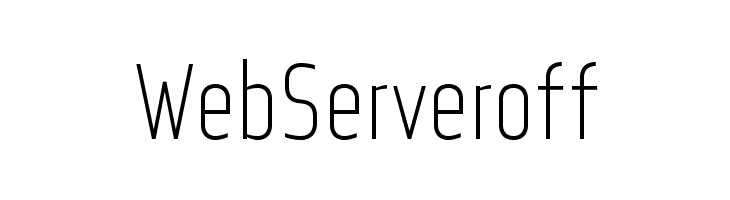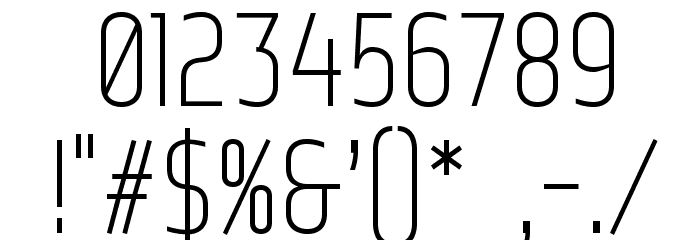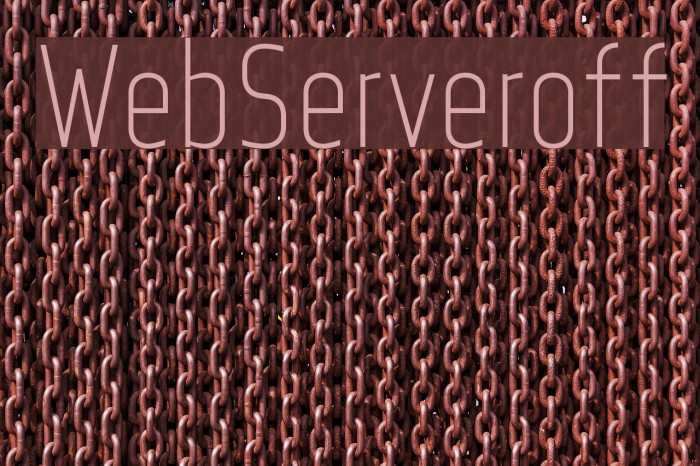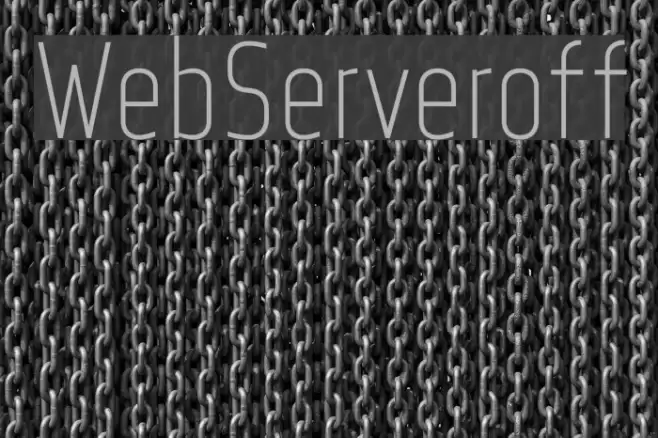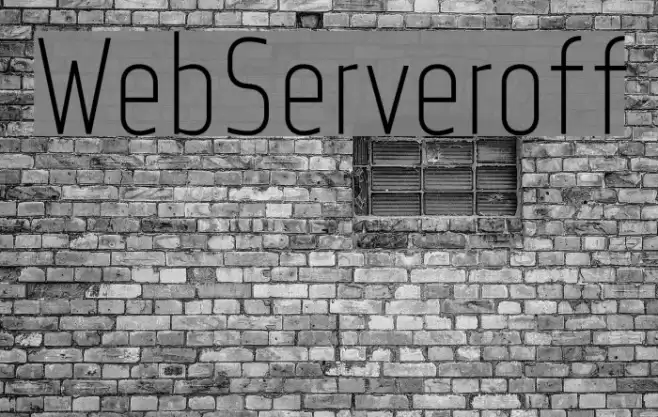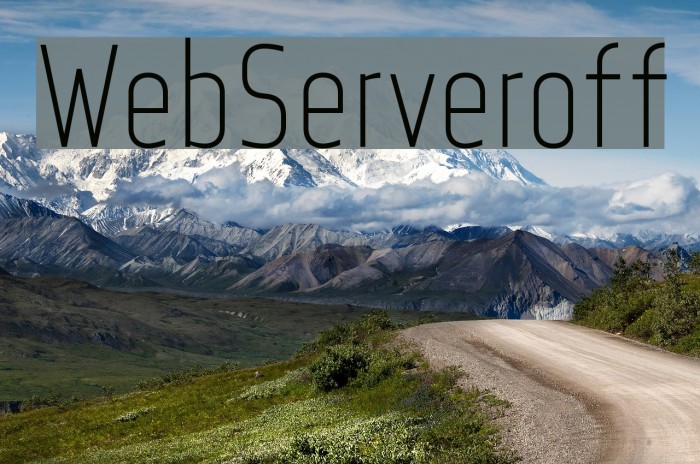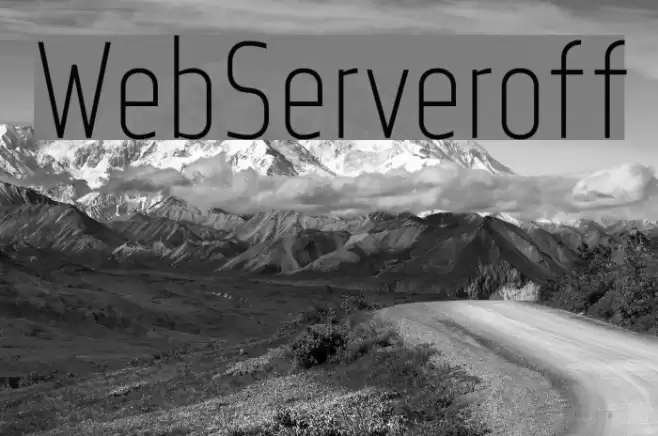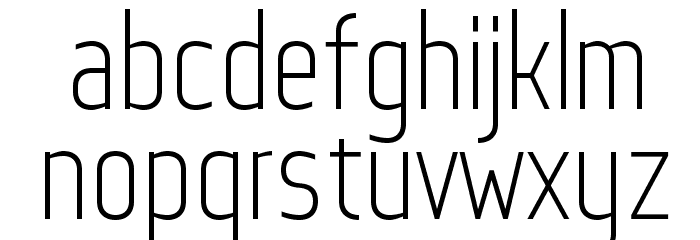
WebServeroff Font
WebServeroff Description
This font features a clean and modern sans-serif design with a geometric structure. The characters are tall and narrow, giving it a sleek and contemporary appearance. The uppercase letters are uniform in height, while the lowercase letters maintain a consistent baseline. The numerals are easily distinguishable, and the special characters are designed to match the overall aesthetic. The font's minimalistic style makes it versatile for various design applications.
| Proposed Projects | Ideal for modern branding, web design, and editorial layouts where a clean and contemporary look is desired. |